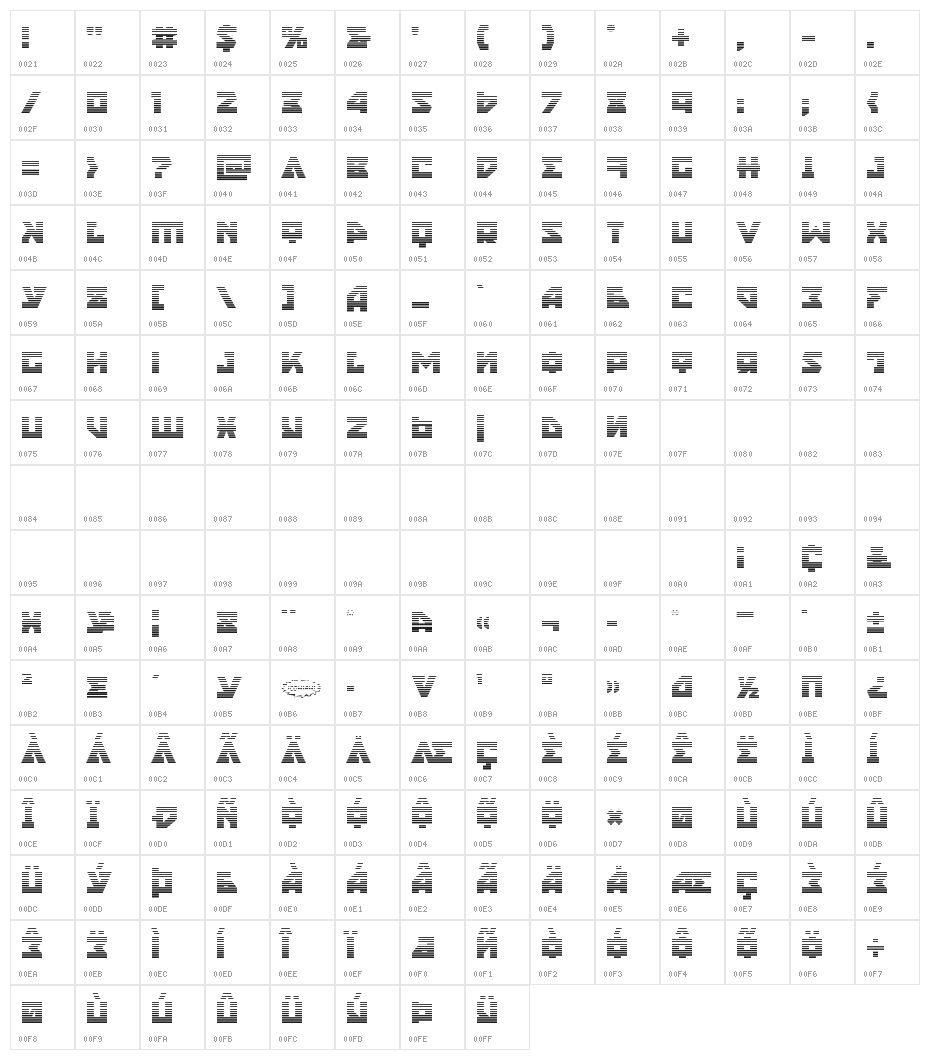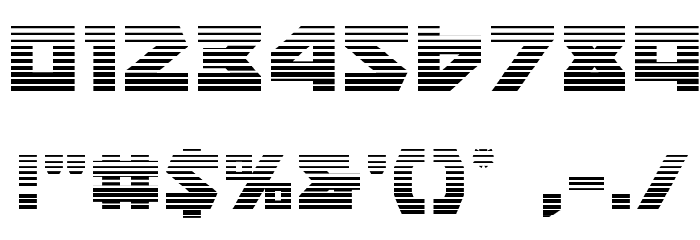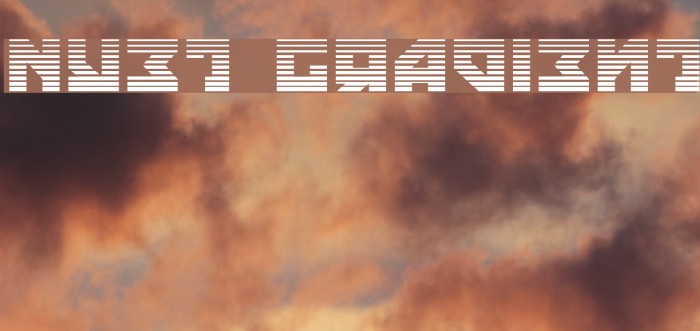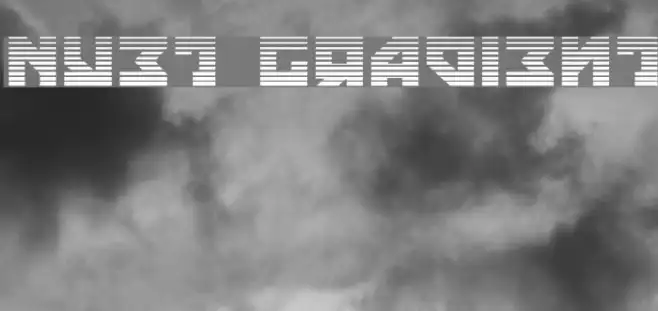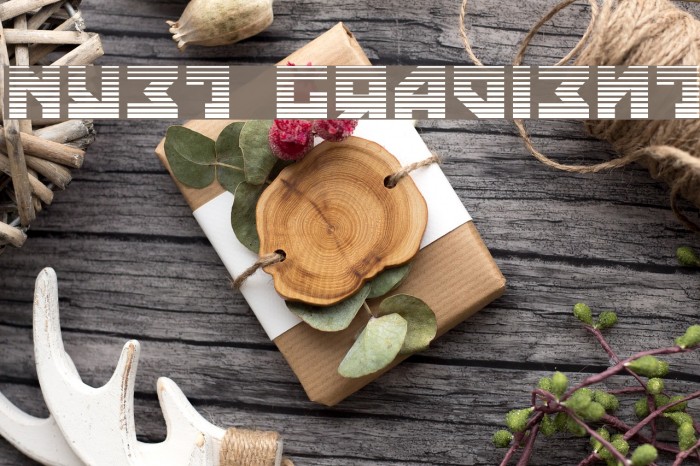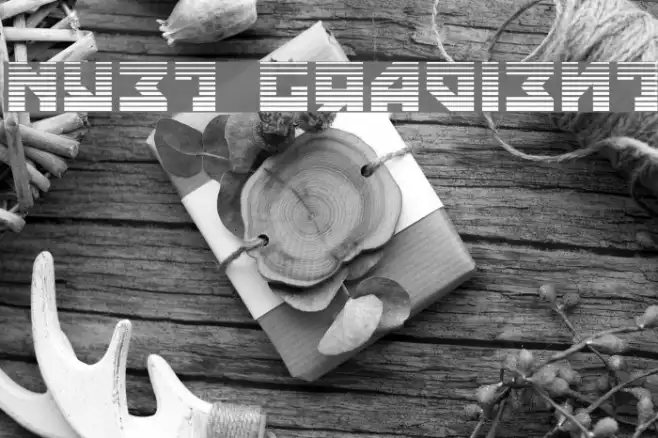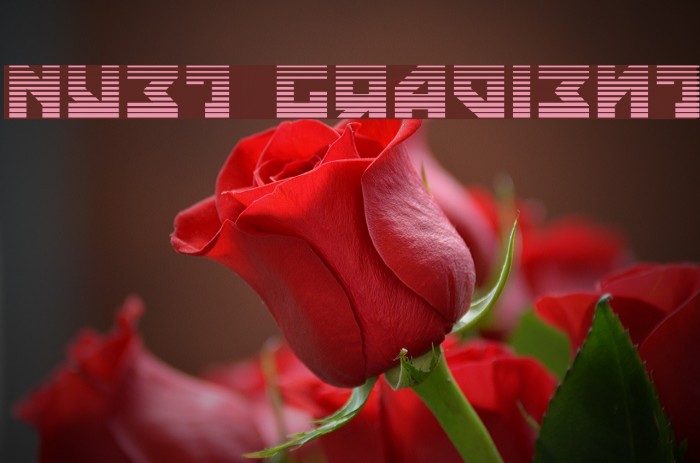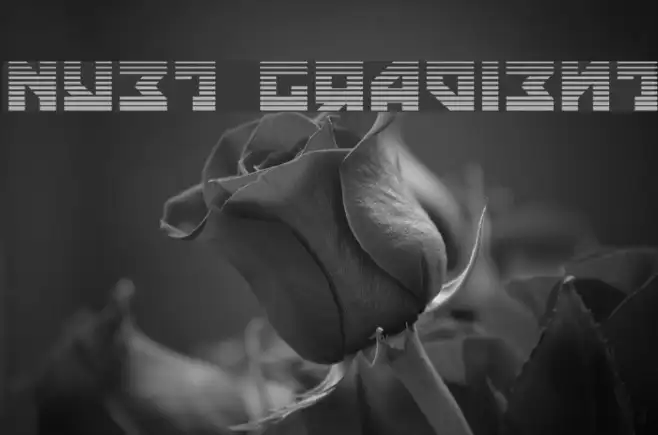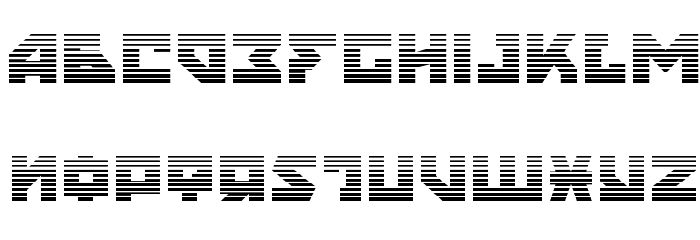
Nyet Gradient Font
Nyet Gradient Description
This font features a bold, futuristic design with a distinct striped pattern running horizontally across each character. The geometric shapes and sharp angles give it a modern and edgy appearance, making it stand out in any design. The uppercase and lowercase letters maintain a consistent style, while the numbers and special characters are crafted with the same attention to detail. The unique gradient effect within the stripes adds depth and visual interest, making it suitable for eye-catching headlines and creative projects.